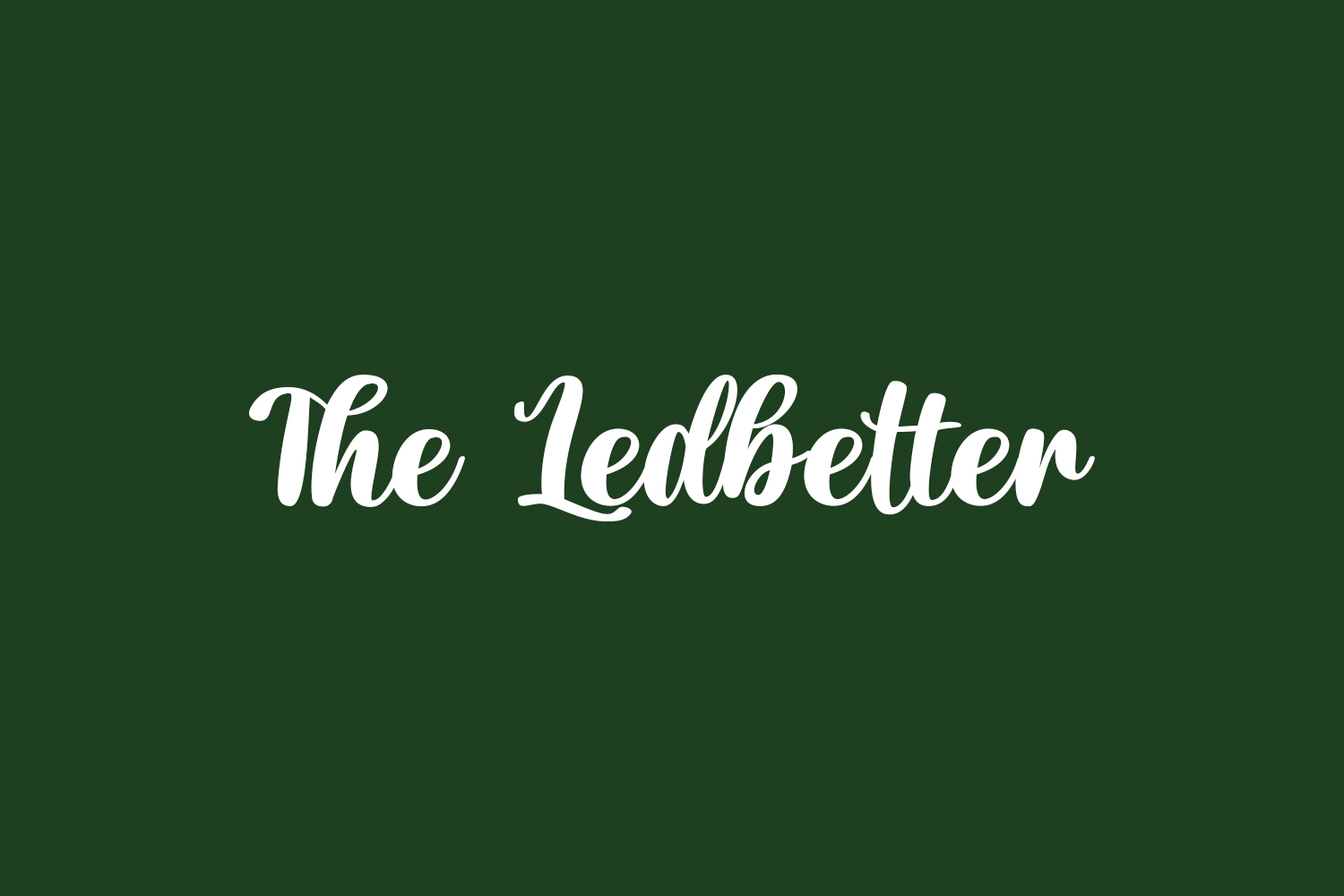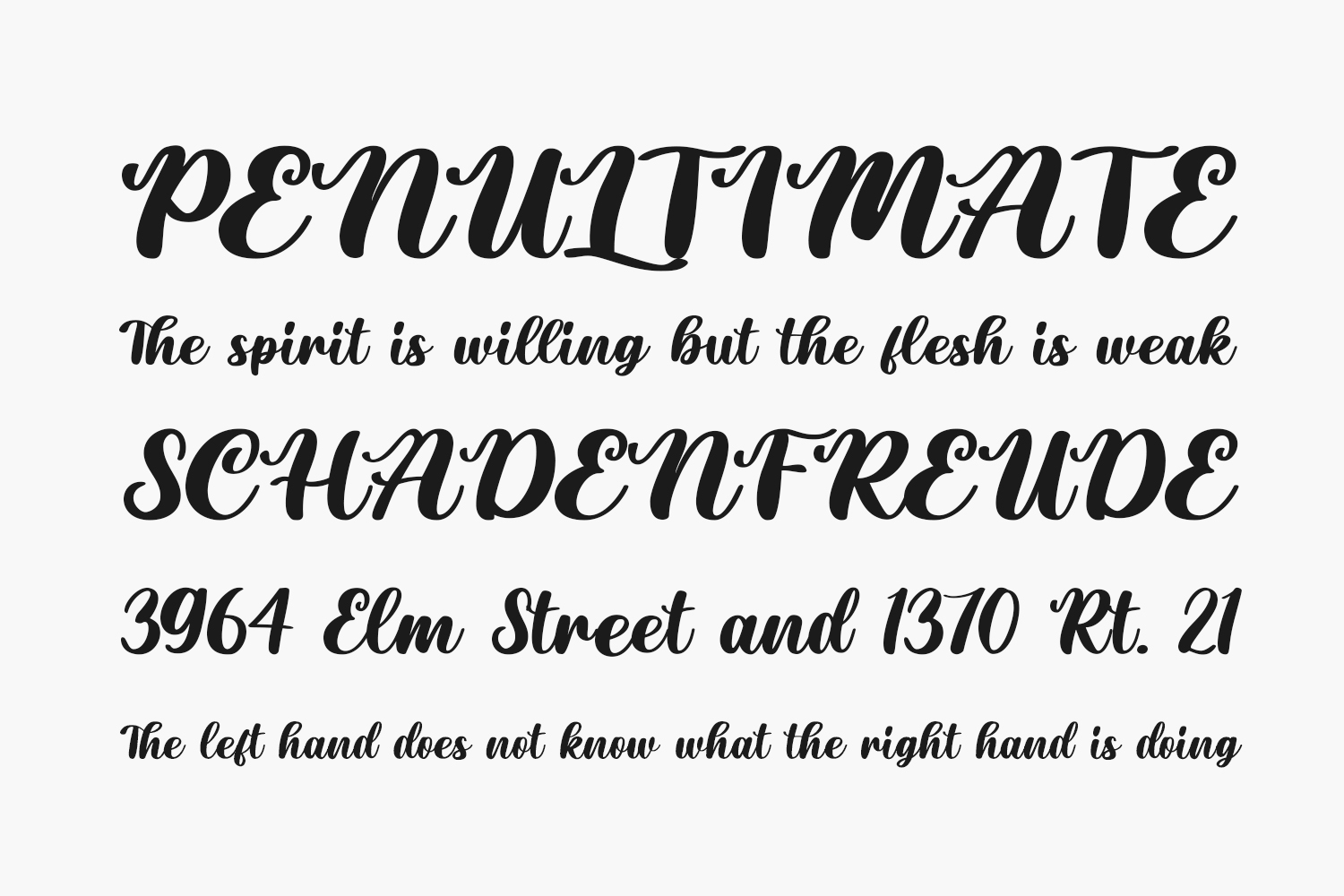
The Ledbetter Free Font is a lovely script font featuring charming, playful characters that seem to dance along the baseline. Add this font to your most creative ideas, and notice how it makes them stand out. The Ledbetter Free Font was designed by Winarko and is free for personal use only. Please purchase the full version for commercial use.